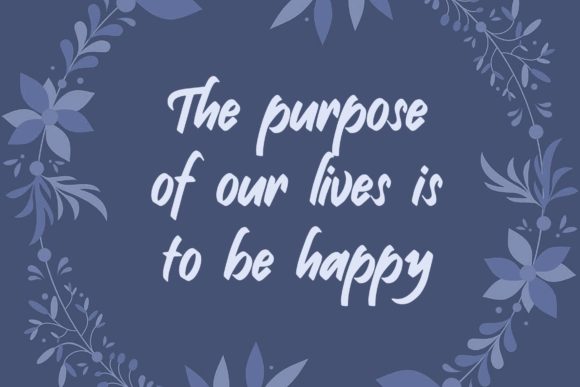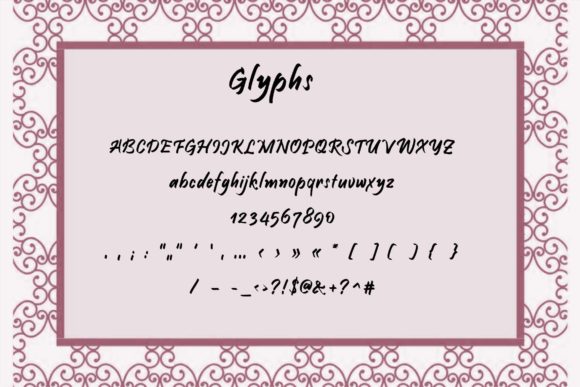
Ublicojuh Font
About Ublicojuh Font
Ublicojuh is a playful and modern italic script font. It can easily be matched to an incredibly large set of projects, so add it to your creative ideas and notice how it makes them stand out!